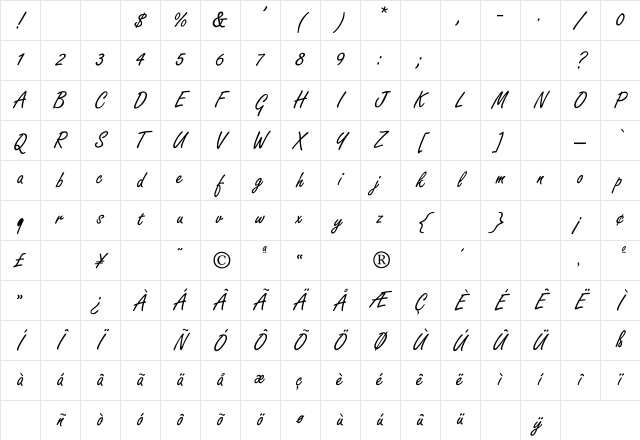
Freeport-Normal Regular
Design Context for Freeport-Normal
Freeport-Normal is a composed and adaptable typeface that performs quietly and consistently across a wide range of design contexts.
Pro Tip: Use Freeport-Normal in both headline and body roles to test its range before committing to a single application.